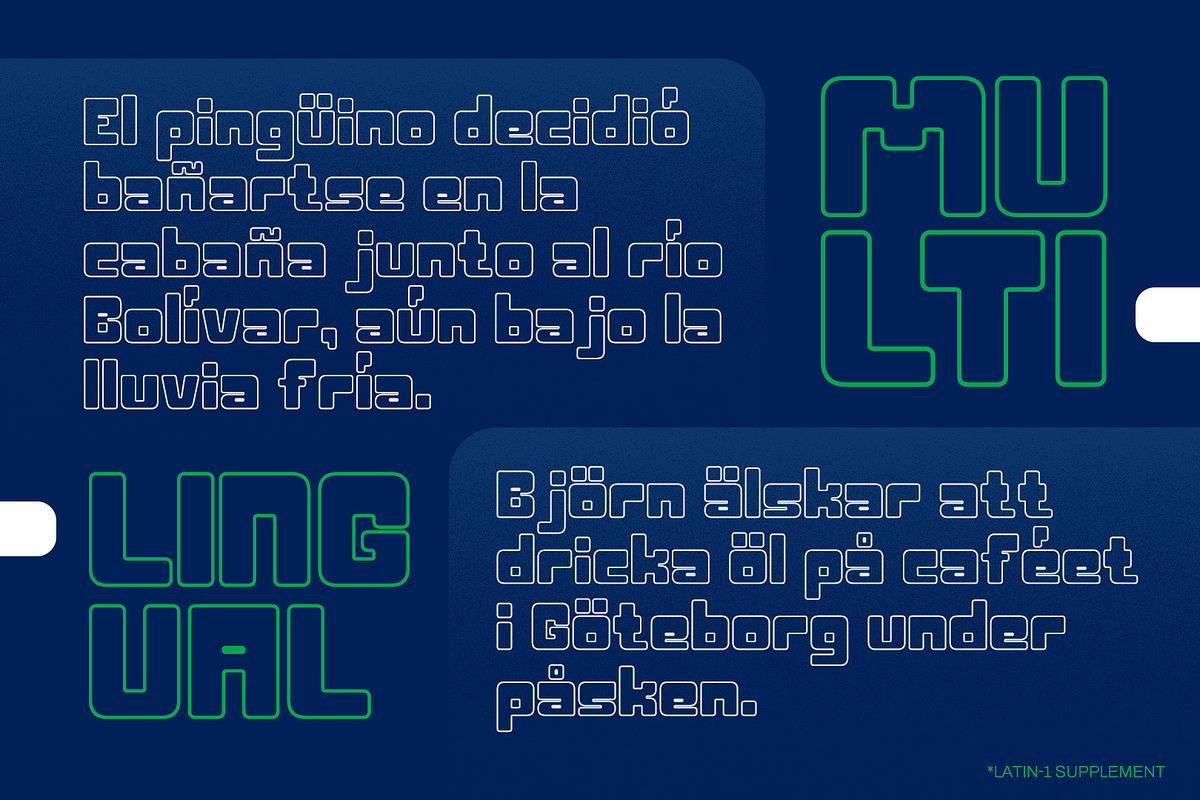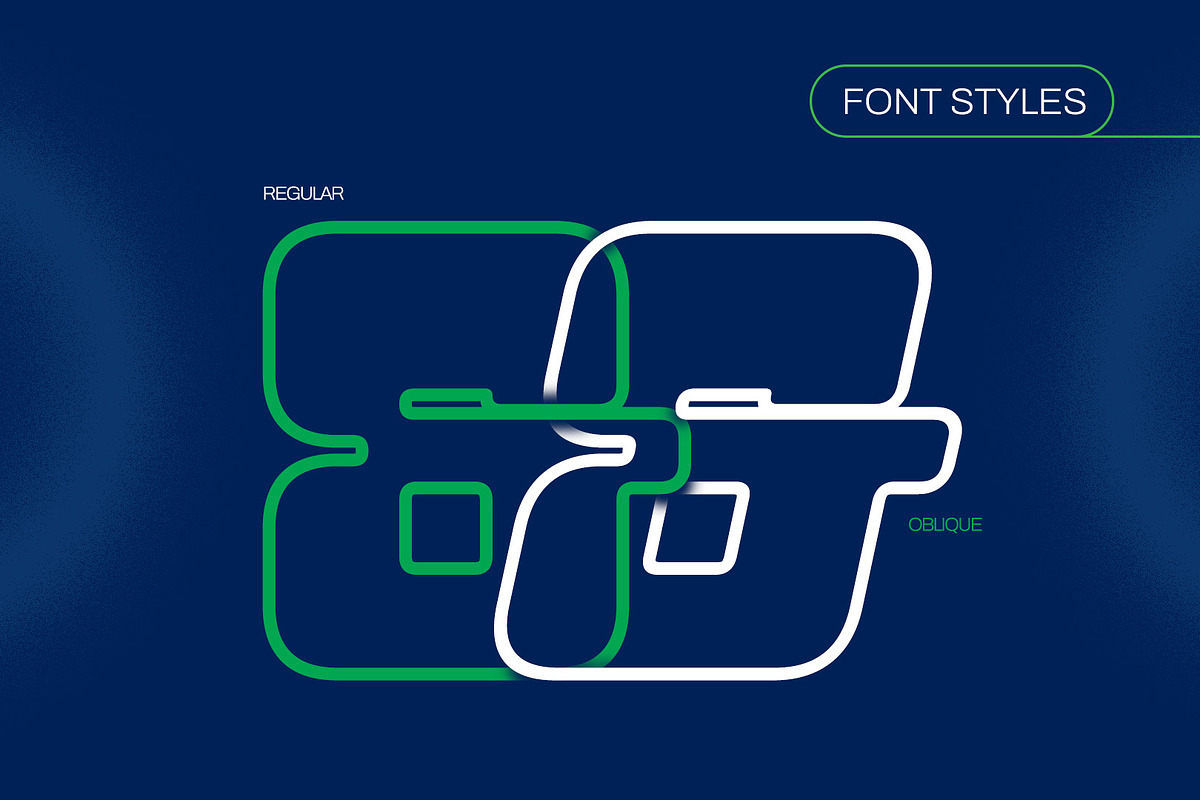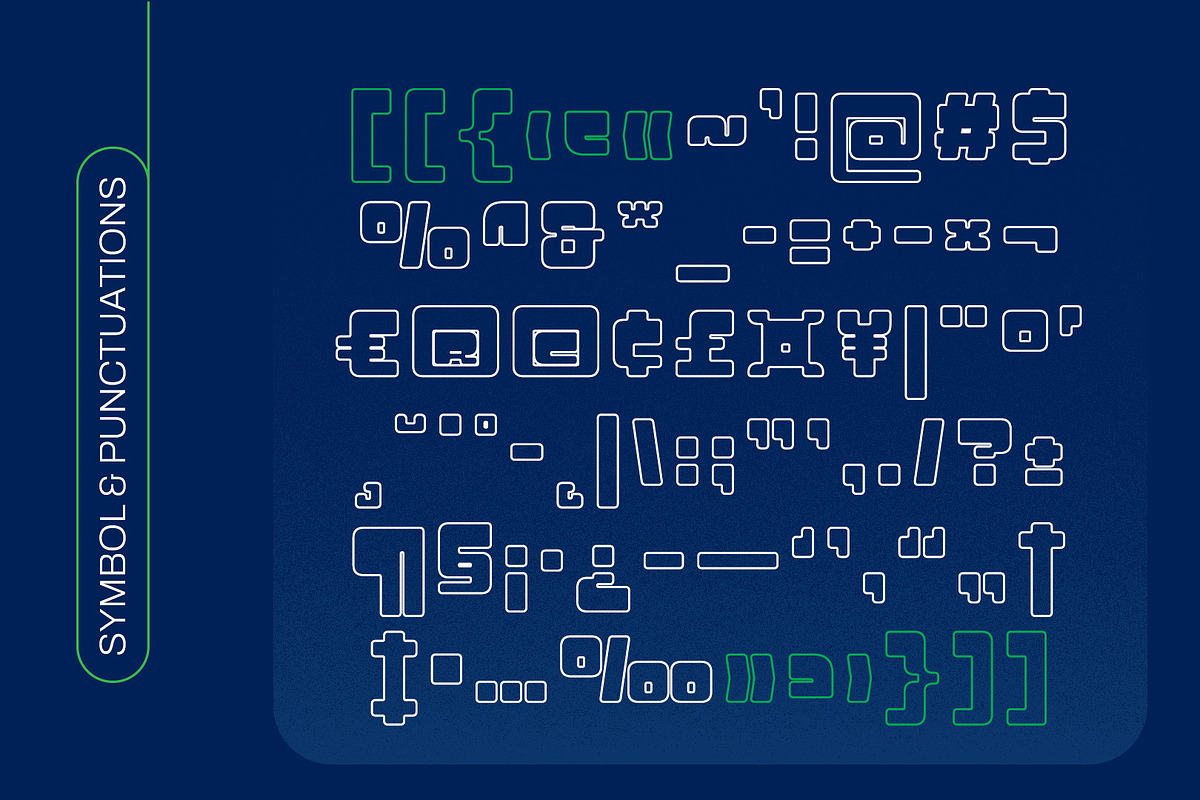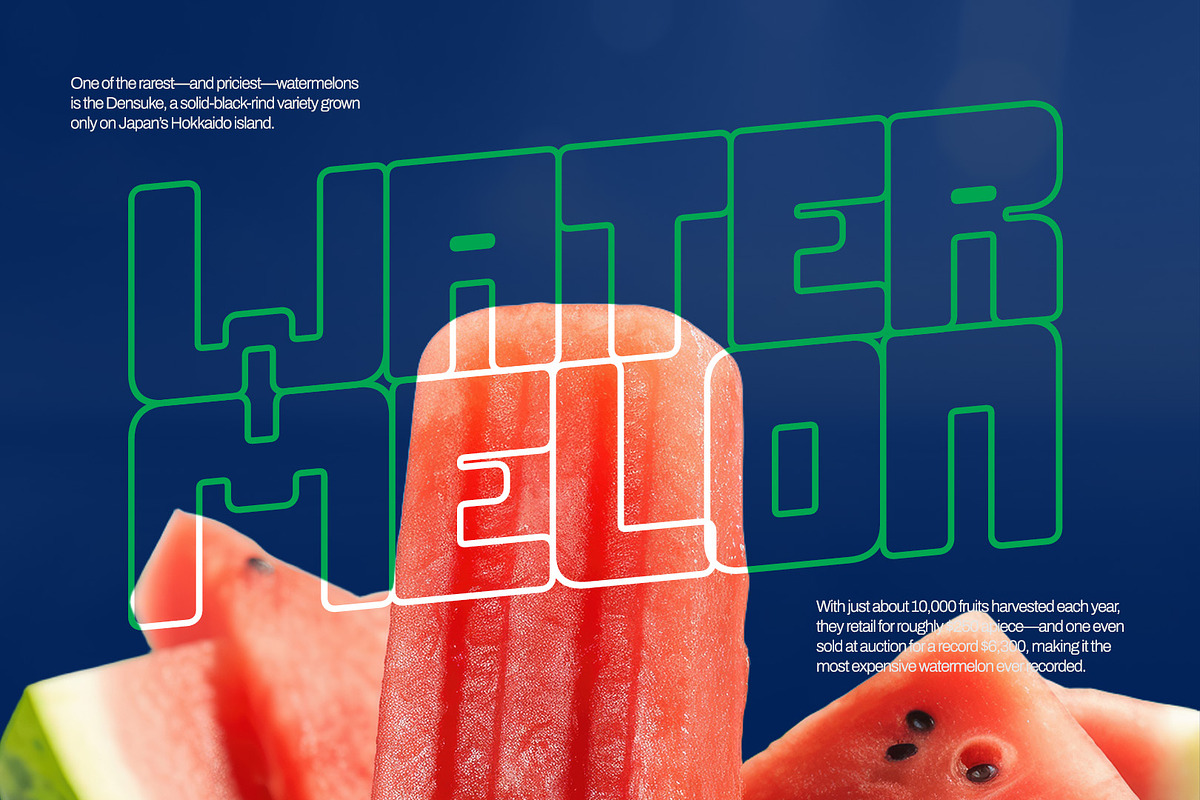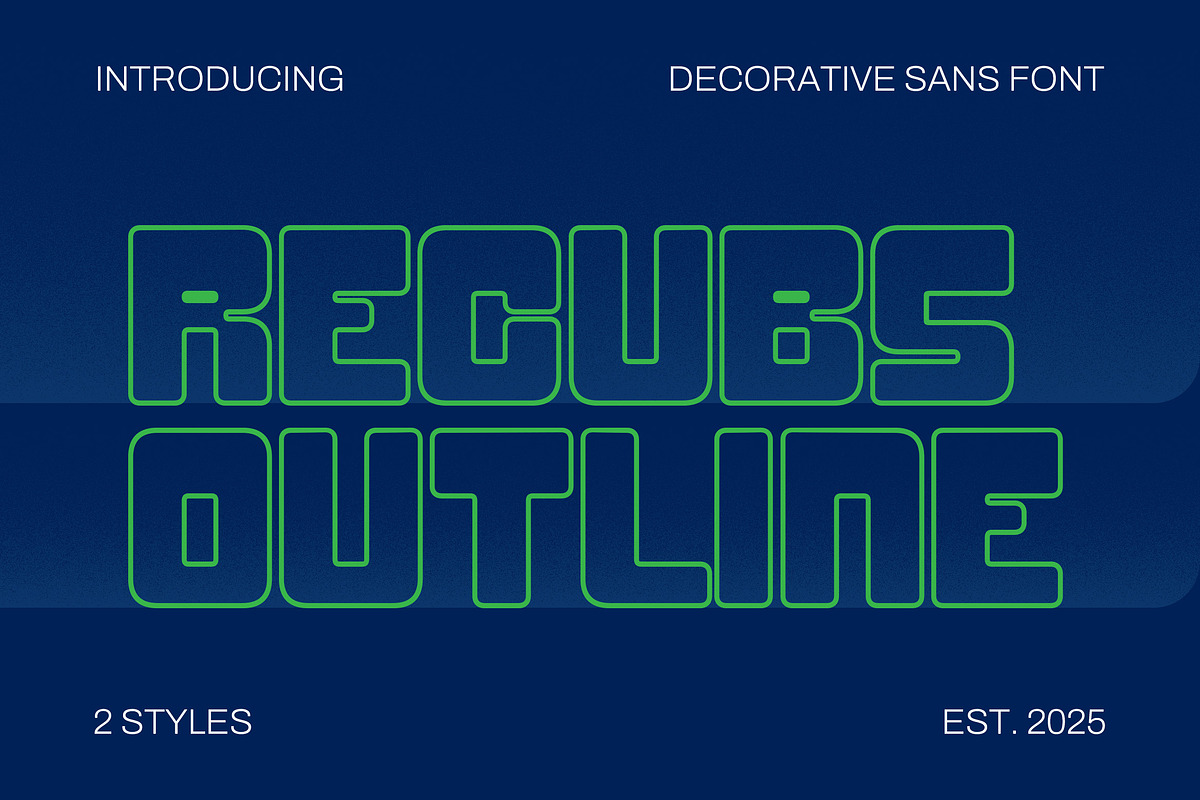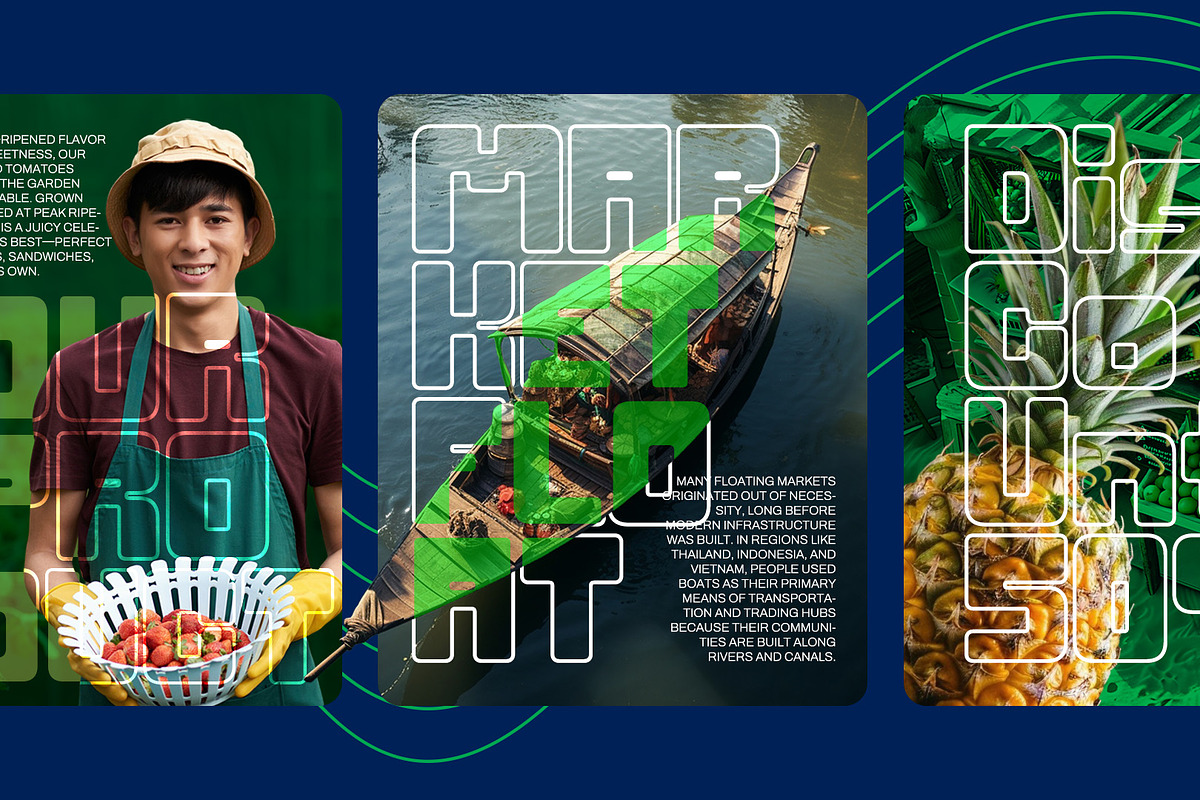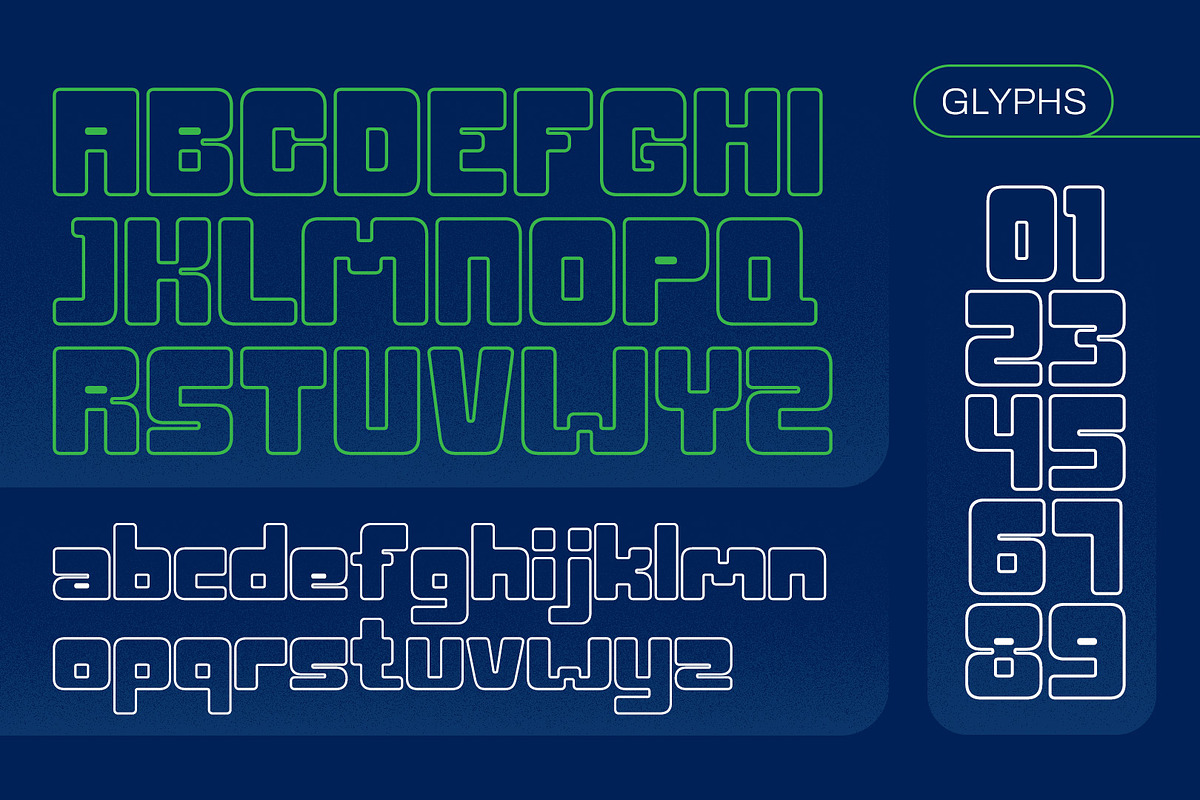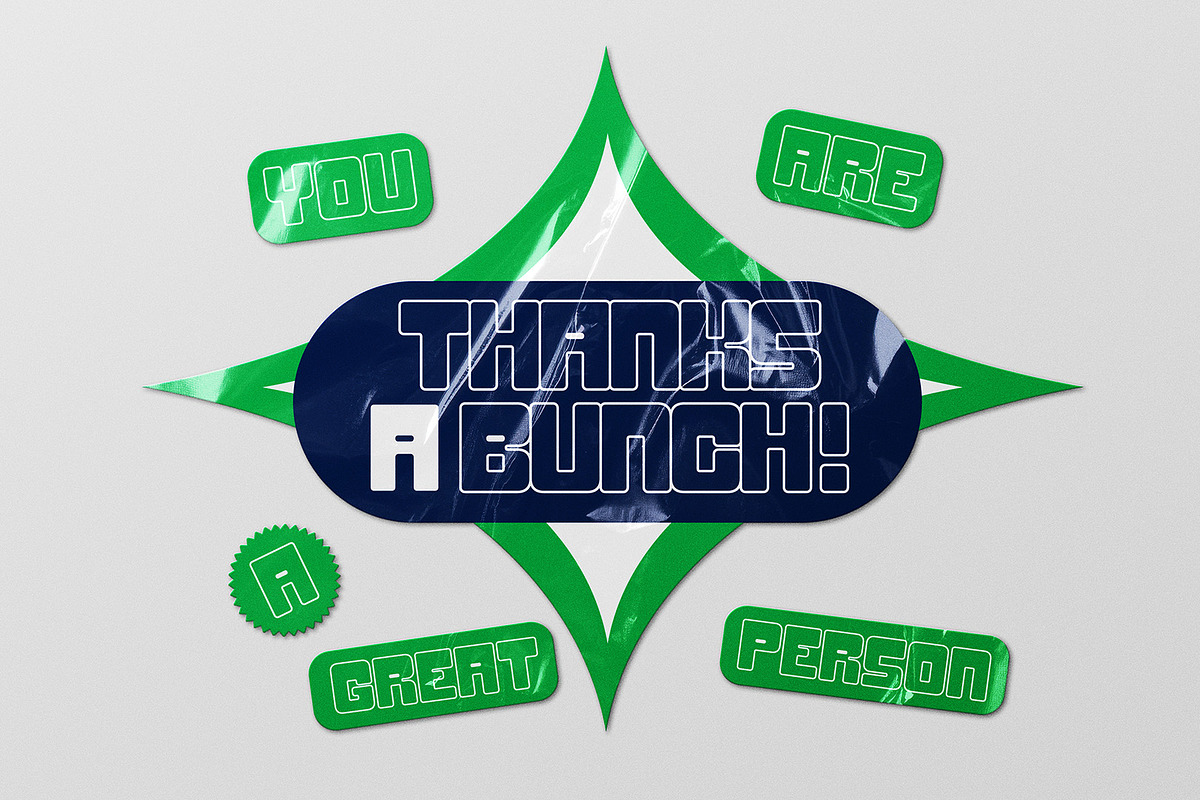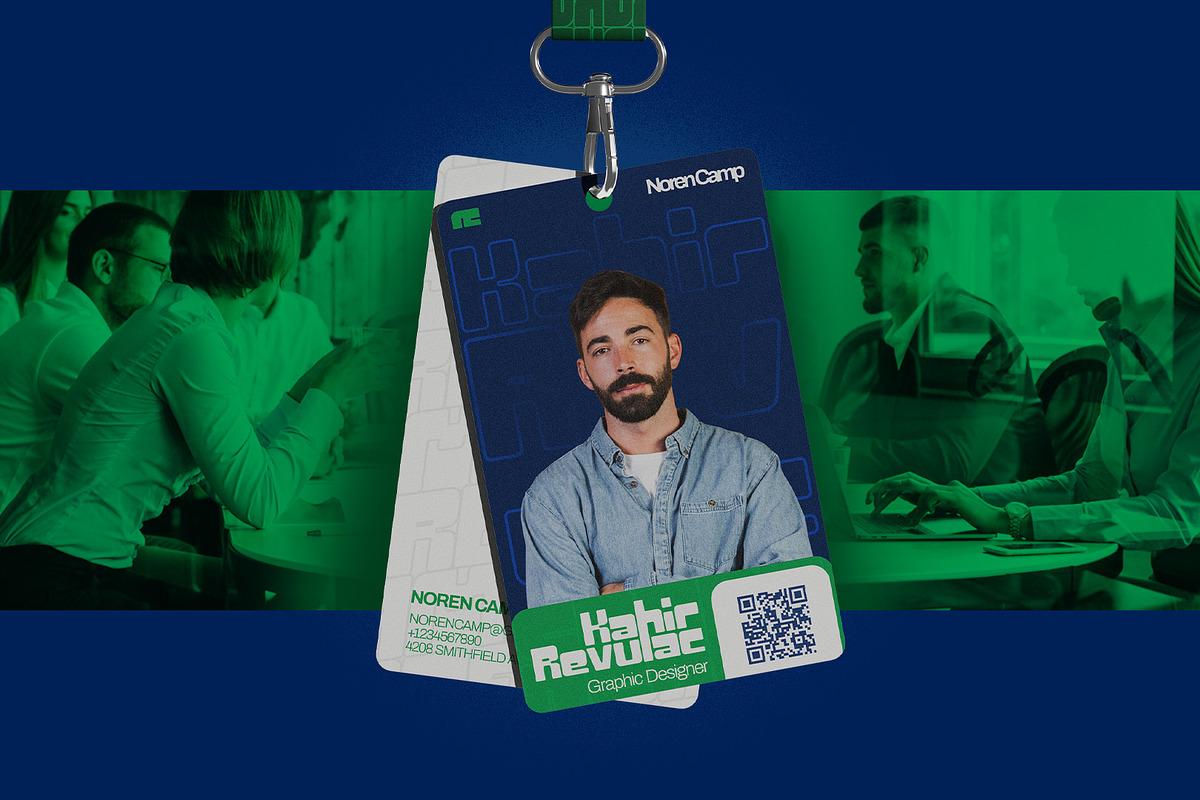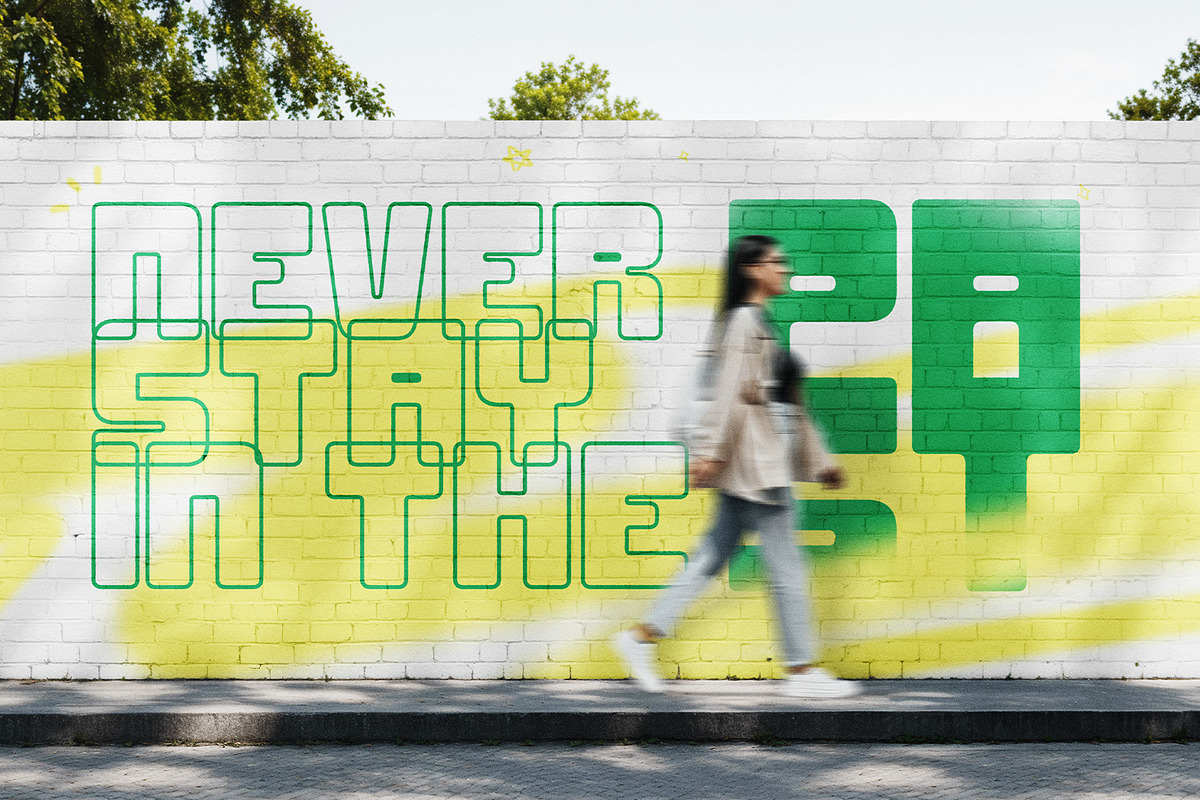
Recubs Outline - Decorative Sans
Recubs Outline reimagines its solid predecessor by distilling structure into pure contour. The result is a typeface that feels lighter, yet still commands attention. Its linear framework maintains the original's gridded DNA, but with new dimension—turning each glyph into a striking silhouette. This makes it perfect for settings that crave boldness without bulk, like oversized headlines, edgy branding, or layered visuals.
The charm lies in its contrast: the font is sharp and confident, yet its openness lends it an inviting tone. Recubs Outline thrives in visual storytelling where typography isn't just read—it's experienced. Whether glowing over neon gradients, layered atop imagery, or animated in motion graphics, this typeface brings volume and rhythm to any creative layout.
- 2 Styles Font : Regular and Oblique
- Standard letter A-Z and a-z
- Numeral, Symbol, and Punctuations